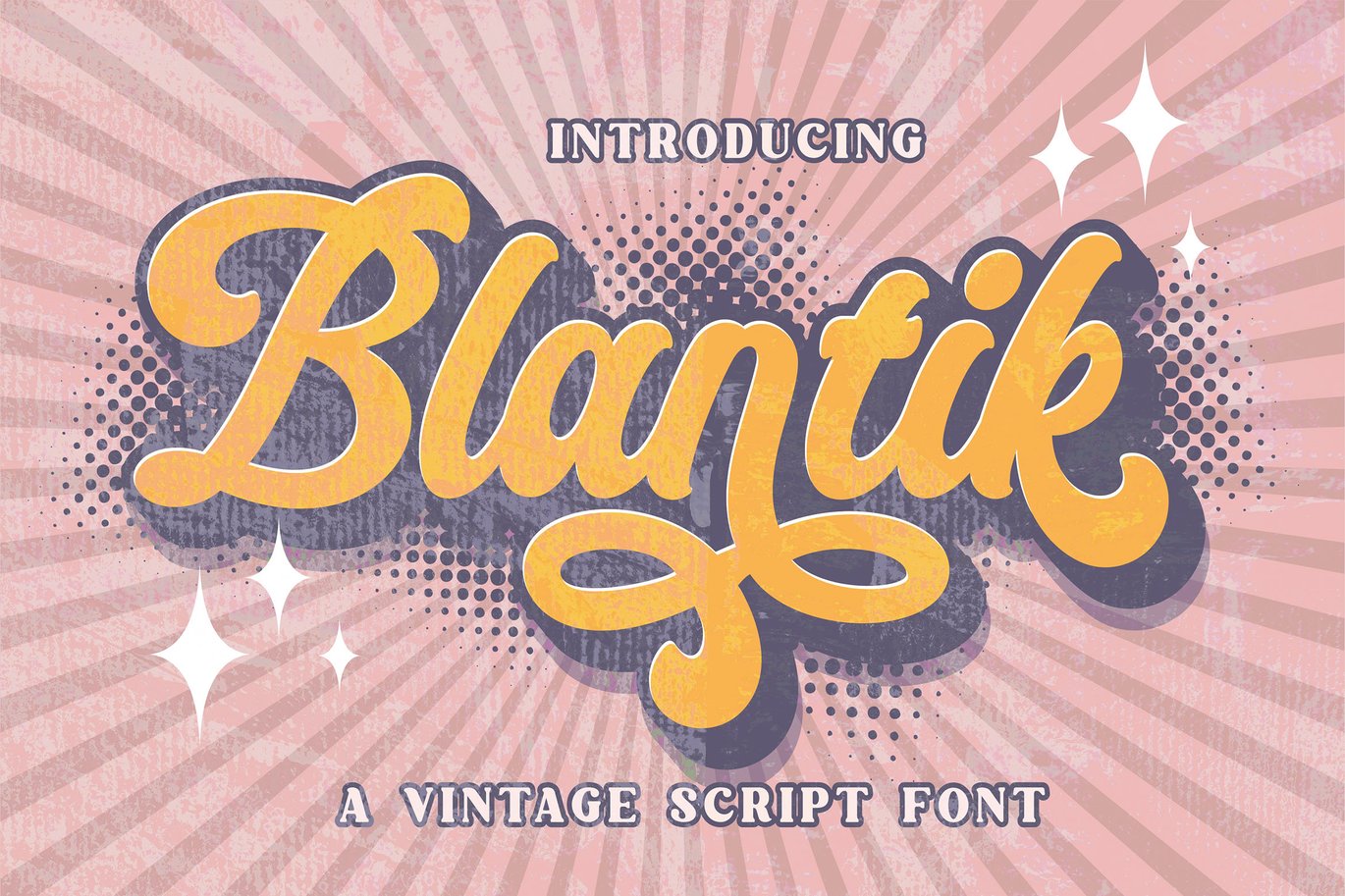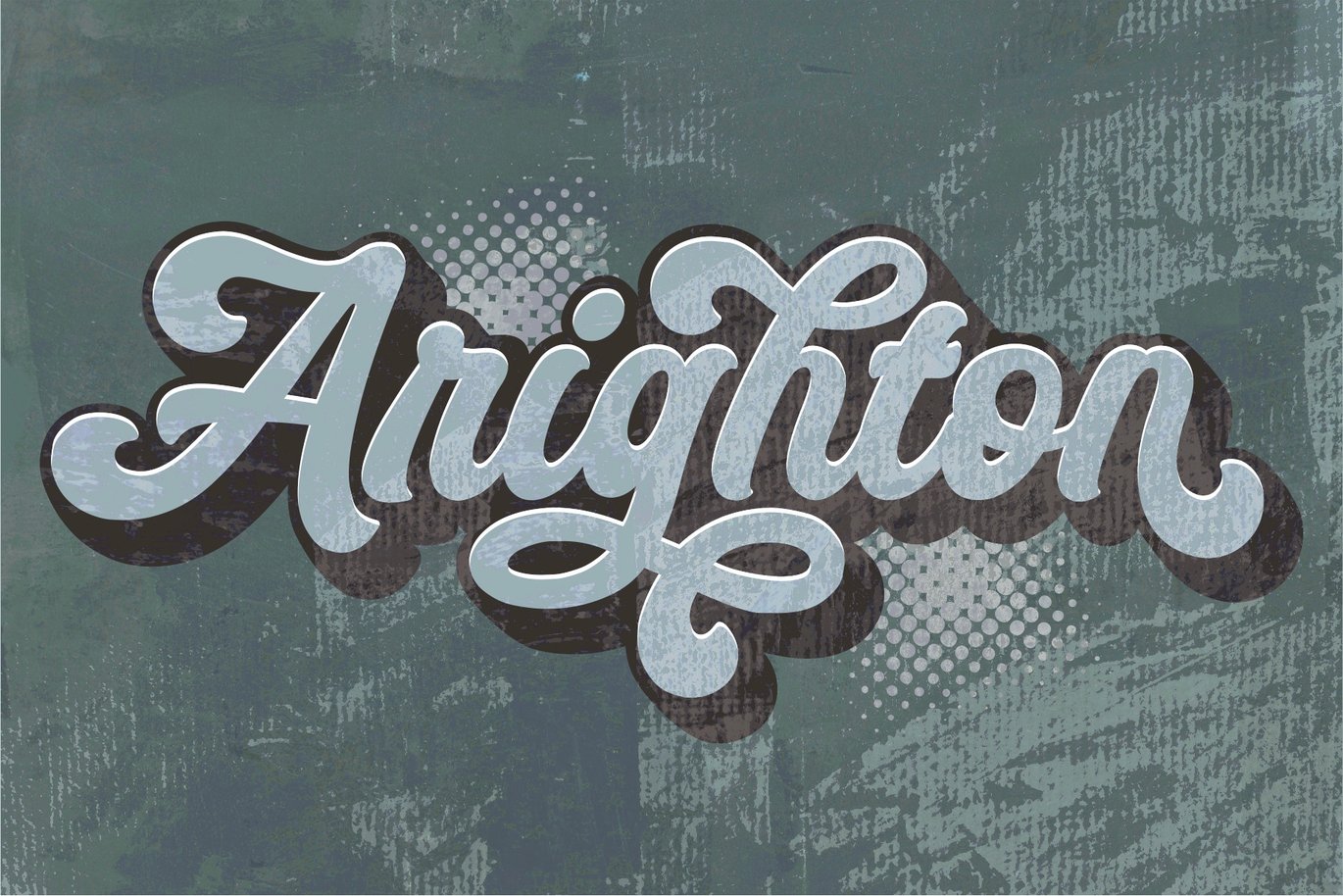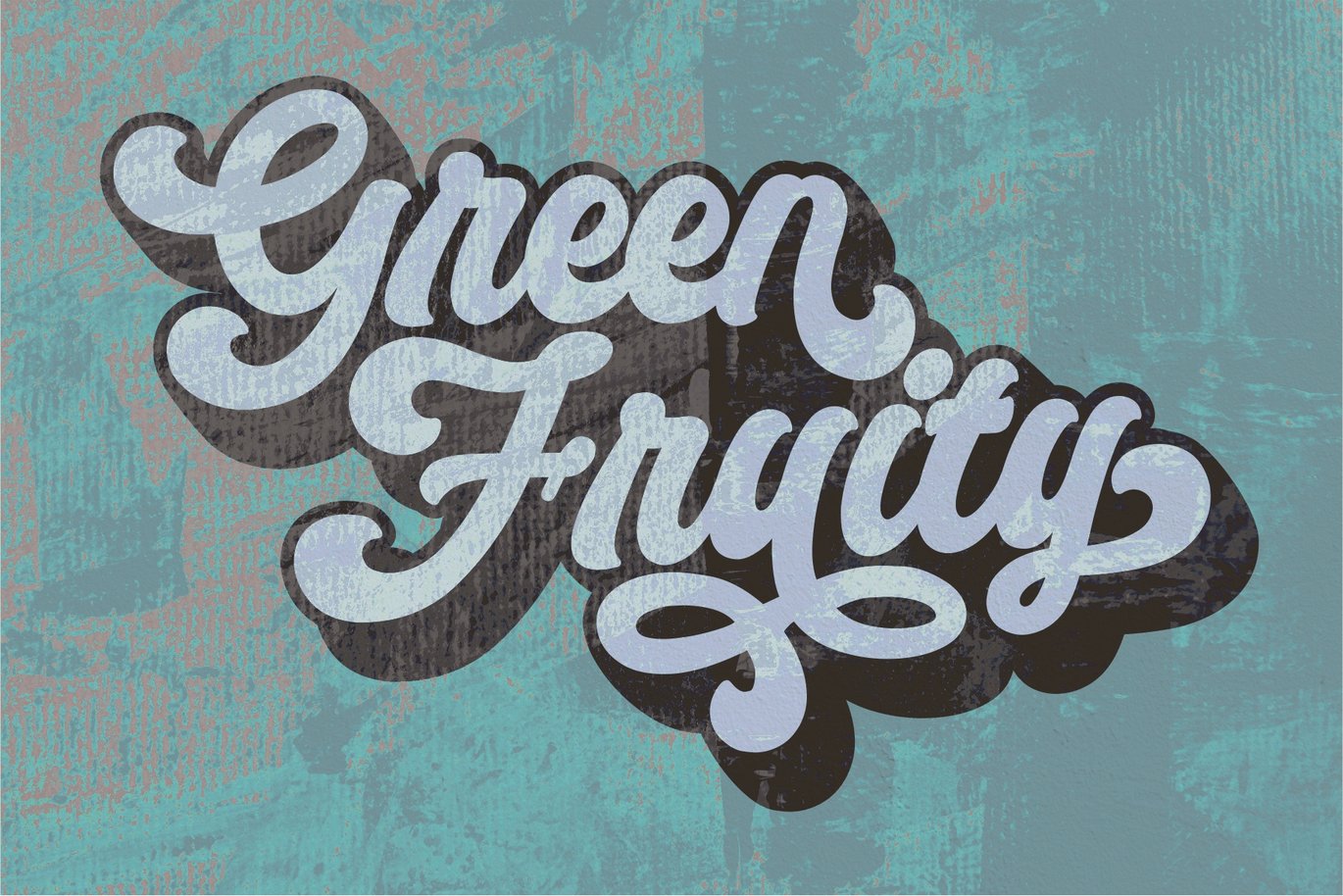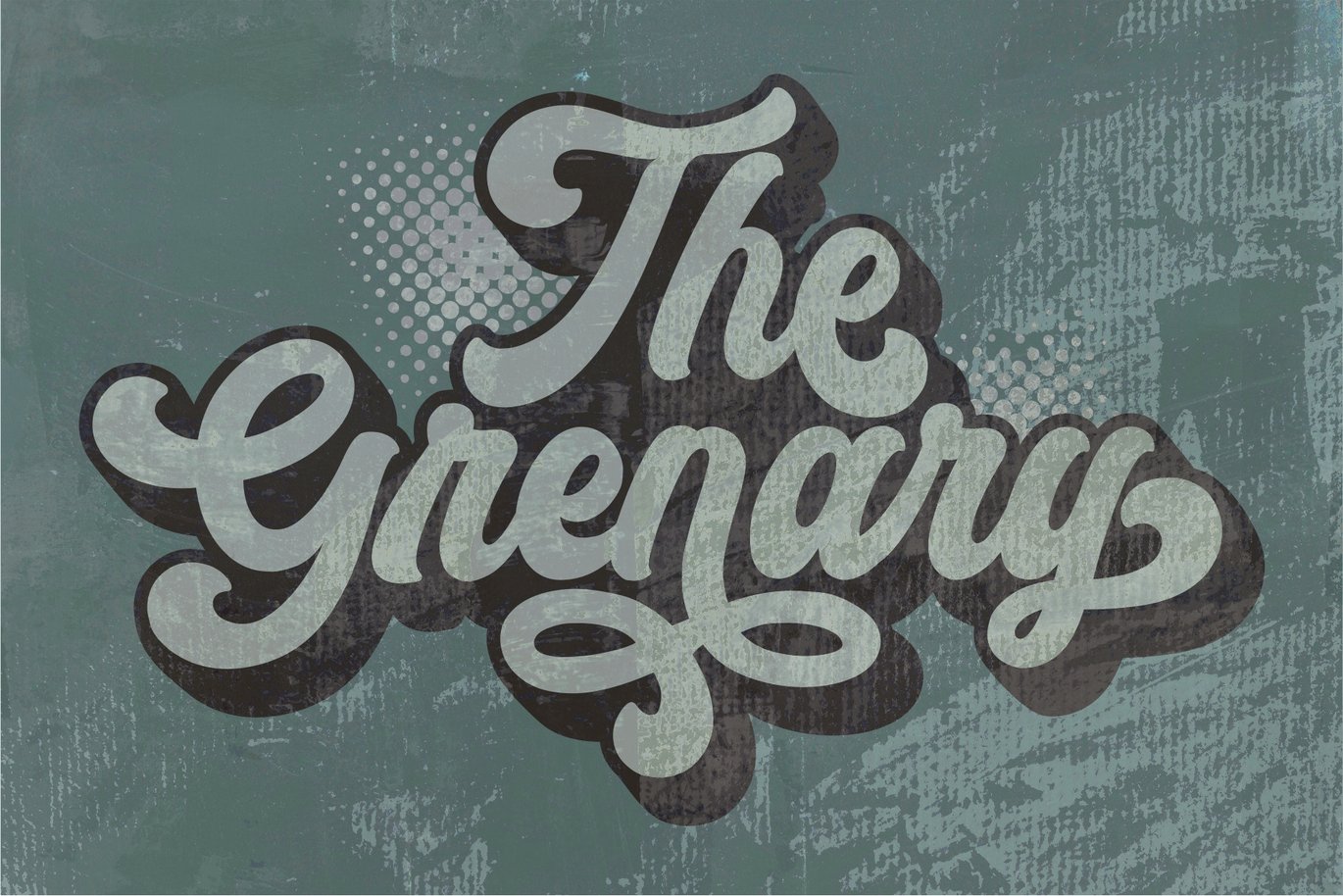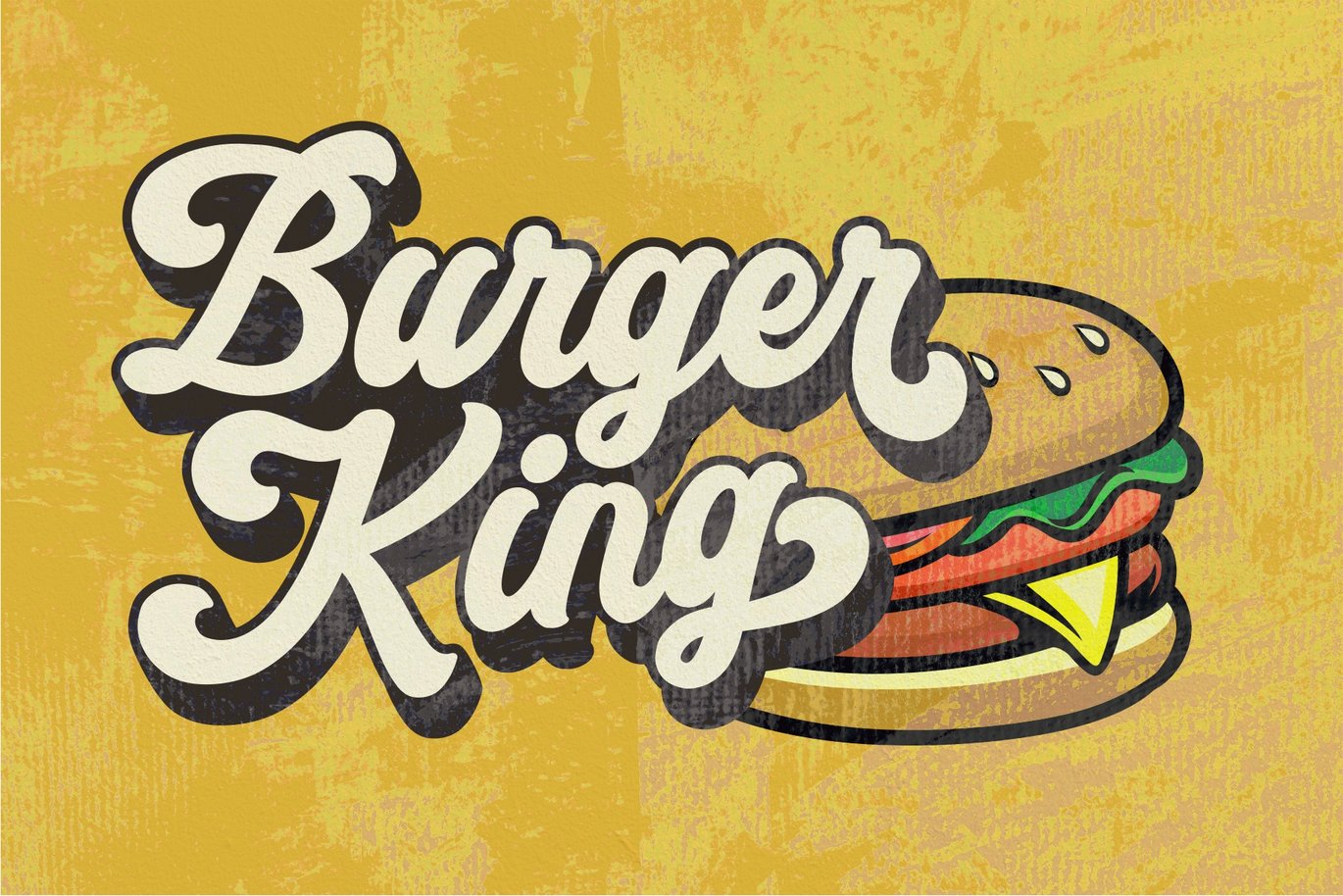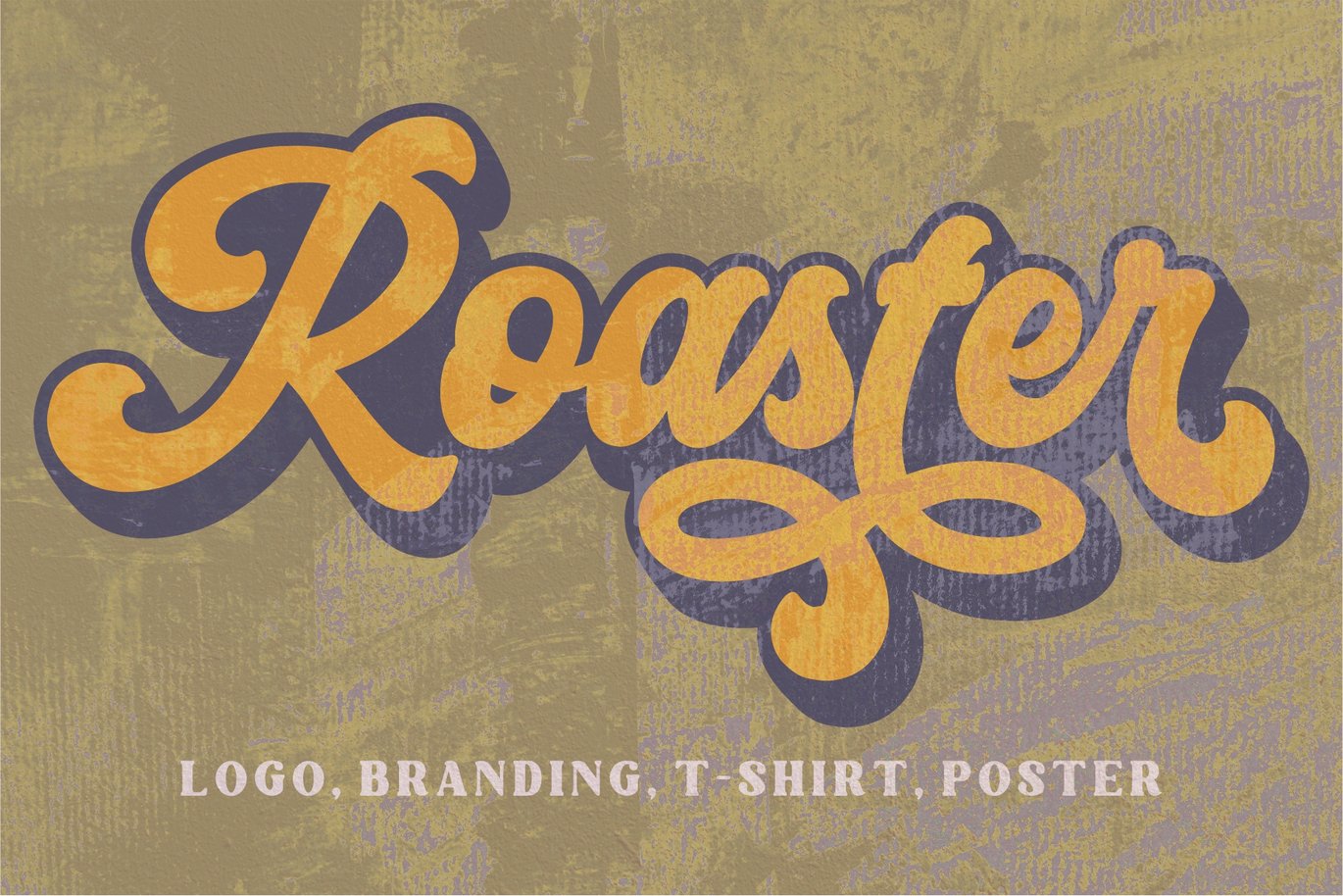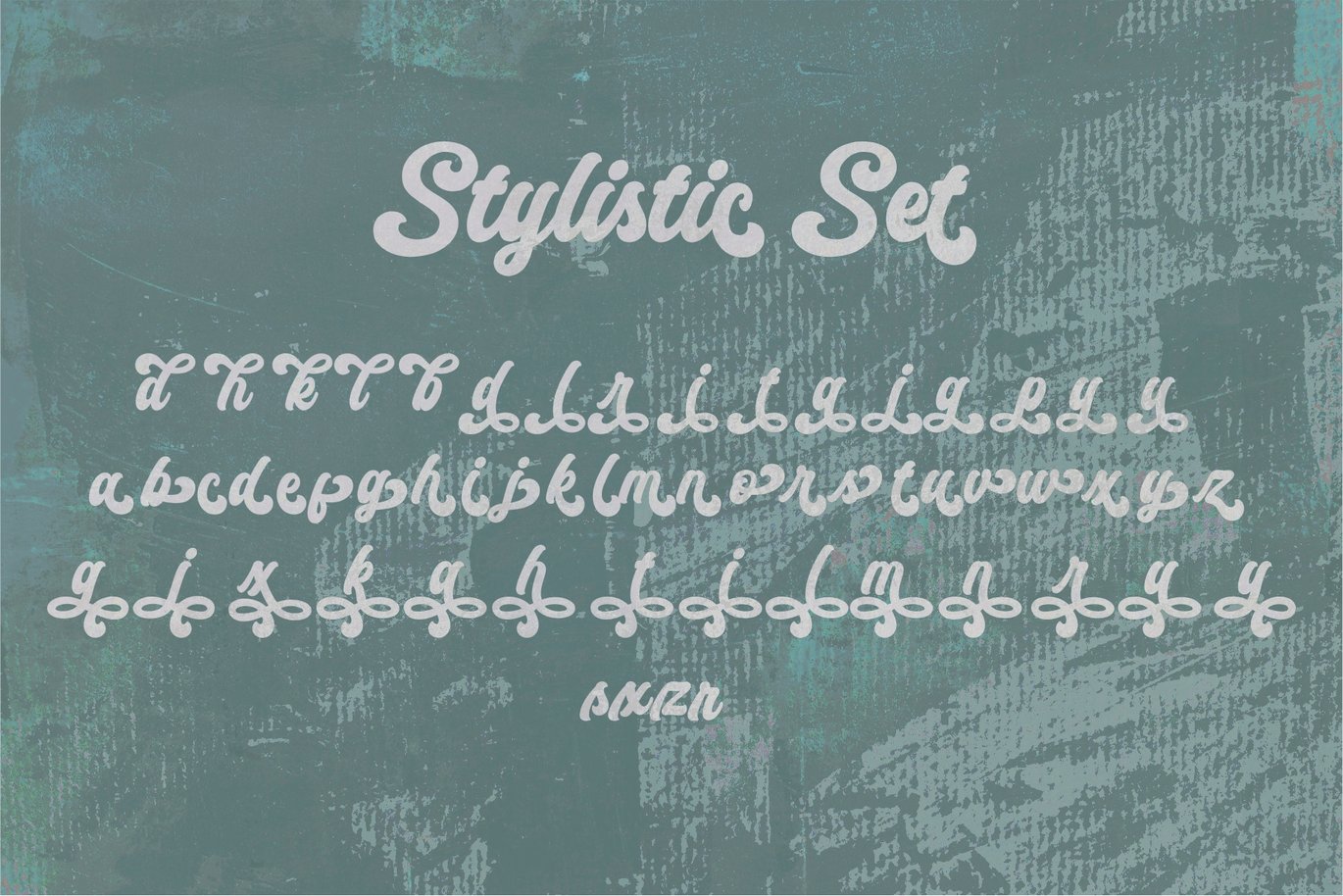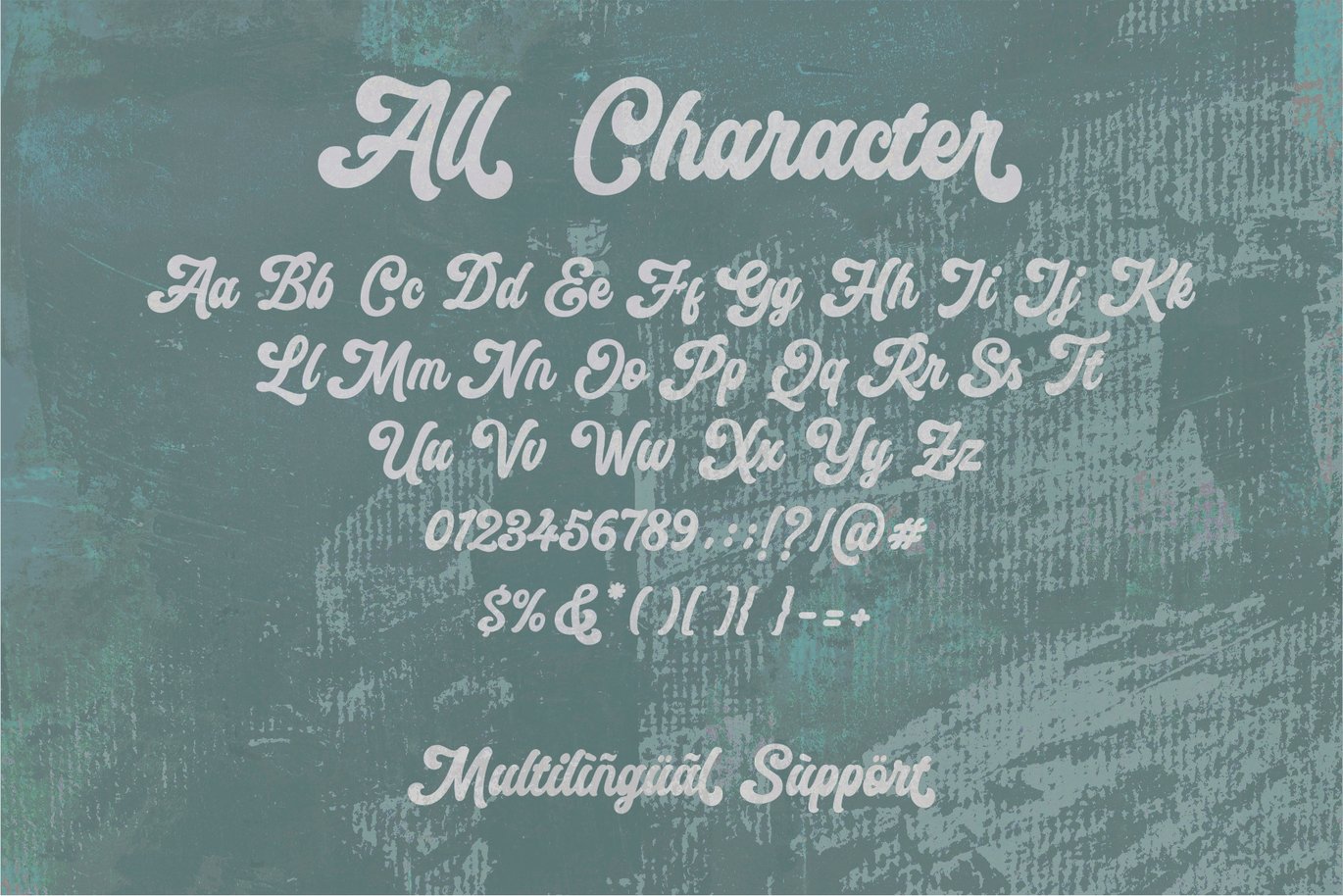
Blantik Vintage Script Font
Introducing Blantik Script Font. This font is made with a unique touch of curves and has a vintage feel complemented by an interesting swash. This font is perfect for all your design needs. These include logos, posters, movie titles, branding, book covers, flyers, and others.